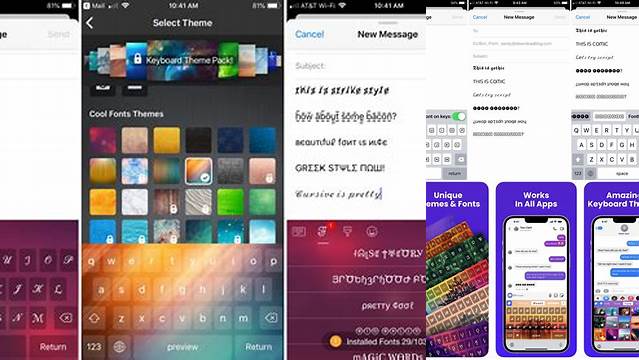
Best Free Keyboard Font Apps For IPhone
Are you tired of the same old boring keyboard on your iPhone? Do you want to spice things up and express your personality through your text messages and social media posts? Well, you're in luck! There are tons of free keyboard font apps available for your iPhone that can help you do just that. Let's dive into some of the best options out there, so you can start typing in style!
1. Cool Fonts for iPhone: What's the Hype?
So, what's all the fuss about cool fonts for your iPhone? Well, guys, it's all about personalization. We all want our phones to reflect our unique styles, and the keyboard is a prime spot to do just that. Using different fonts can make your messages stand out, add a bit of flair to your social media bios, and just make typing a whole lot more fun. Plus, who doesn't love showing off a little bit? With the right app, you can transform your mundane keyboard into a creative canvas.
The allure of cool fonts for iPhones lies in their ability to personalize our digital experiences. In a world where self-expression is highly valued, customizing your keyboard with unique fonts offers a simple yet effective way to stand out. From adding a touch of elegance to casual messages to injecting personality into social media bios, the possibilities are endless. Embracing this trend allows users to transform their mundane typing tasks into opportunities for creative expression and showcasing individual style.
2. Top Free Font Apps: A Quick Overview
Alright, let's cut to the chase. Which free font apps are actually worth your time? There are a bunch out there, but some of the top contenders include Fonts, Font Keyboard, and FancyKey. These apps offer a wide variety of fonts, from elegant scripts to bold block letters. Some even let you create your own custom fonts! The best part? They won't cost you a dime (though some might have optional in-app purchases for extra features).
Navigating the vast landscape of free font apps can be overwhelming, but several options stand out for their quality and versatility. Among the top contenders are Fonts, Font Keyboard, and FancyKey, each offering a diverse range of typographic styles to suit various preferences. Whether you're seeking elegant scripts, bold block letters, or the ability to create custom fonts, these apps provide ample opportunities for personalization. While most offer their core features for free, some may include optional in-app purchases for added functionality, allowing users to tailor their experience to their specific needs and budget.
4. Best Fonts for Instagram Bios: Make Your Profile Pop
Your Instagram bio is like your digital handshake. It's the first impression you make on anyone who visits your profile. Using best fonts for Instagram bios can help you stand out from the crowd and make a memorable impact. Think about what kind of vibe you want to convey – playful, sophisticated, edgy? Choose a font that matches that vibe and use it to highlight key information about yourself or your brand.
Your Instagram bio serves as your digital introduction, shaping the first impression you make on potential followers. Leveraging the best fonts for Instagram bios can significantly enhance your profile's appeal and memorability. Before selecting a font, consider the overall vibe you want to convey – whether it's playful, sophisticated, or edgy. Choose a font that aligns with your desired aesthetic and use it strategically to highlight key information about yourself or your brand, ensuring your bio captures attention and leaves a lasting impression.
5. Free Stylish Fonts for iPhone: A Touch of Elegance
If you're looking to add a touch of elegance to your messages, then free stylish fonts are the way to go. These fonts often feature flowing scripts, delicate serifs, and graceful curves. They're perfect for sending heartfelt messages, writing elegant captions, or just adding a touch of class to your everyday communications. Check out apps like iFont or Font Diner for some great options.
Thus concludes our comprehensive guide to free fonts for iPhone keyboard. Given the abundance of remarkable apps at your disposal, there's no rationale to remain tethered to the mundane default keyboard. Download a selection of apps, experiment with an array of fonts, and pinpoint the ideal style to articulate your unique personality and preferences. Happy typing, and may your messages reflect your individuality and flair!